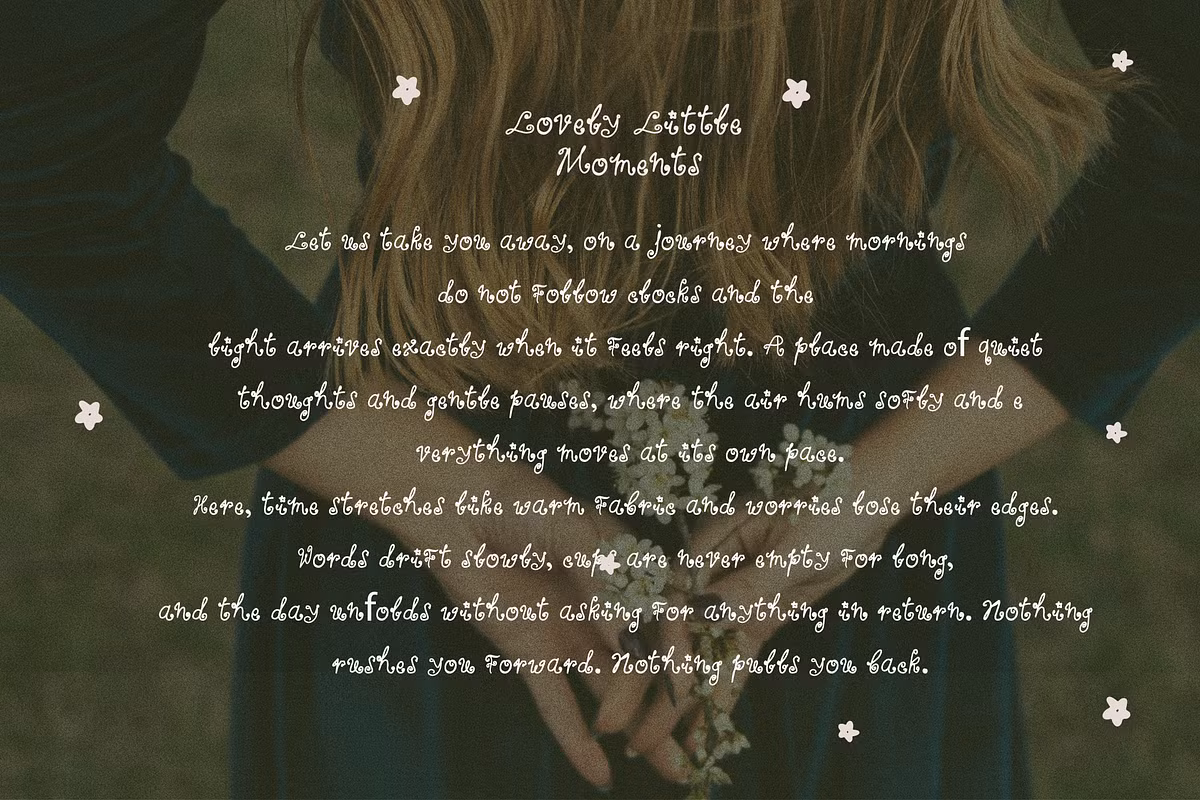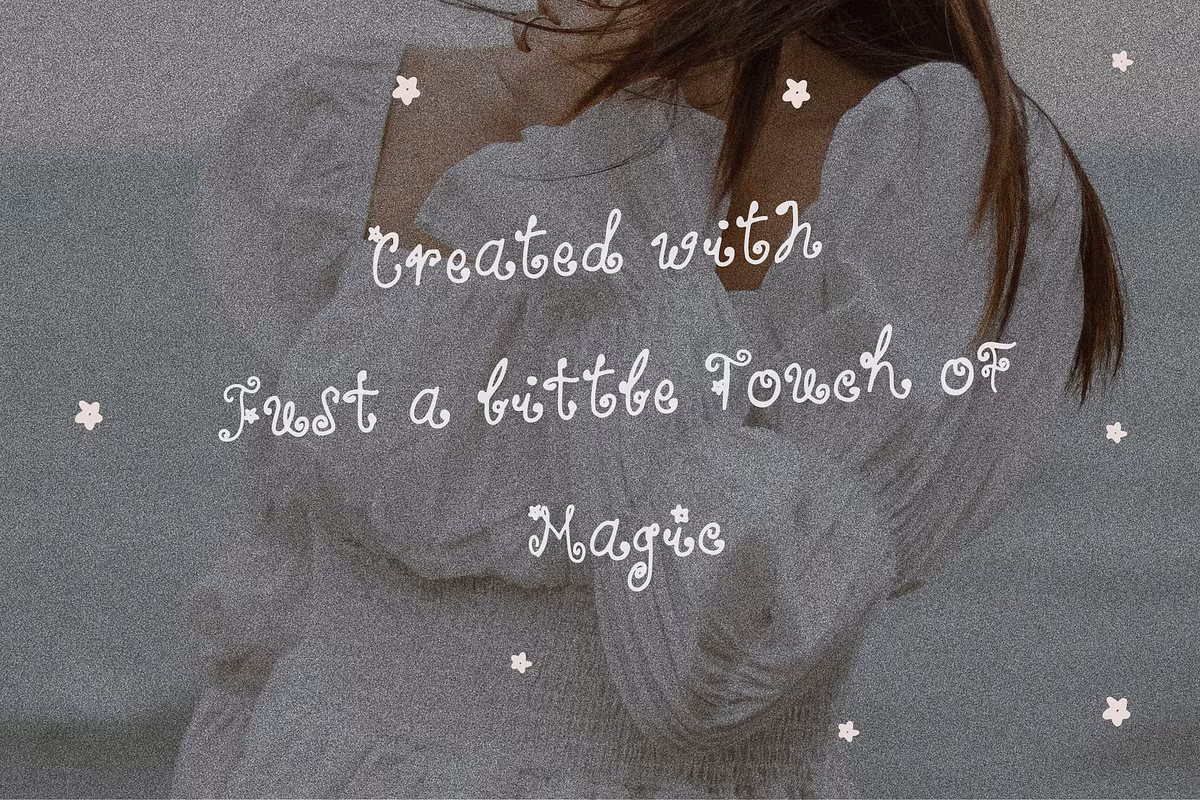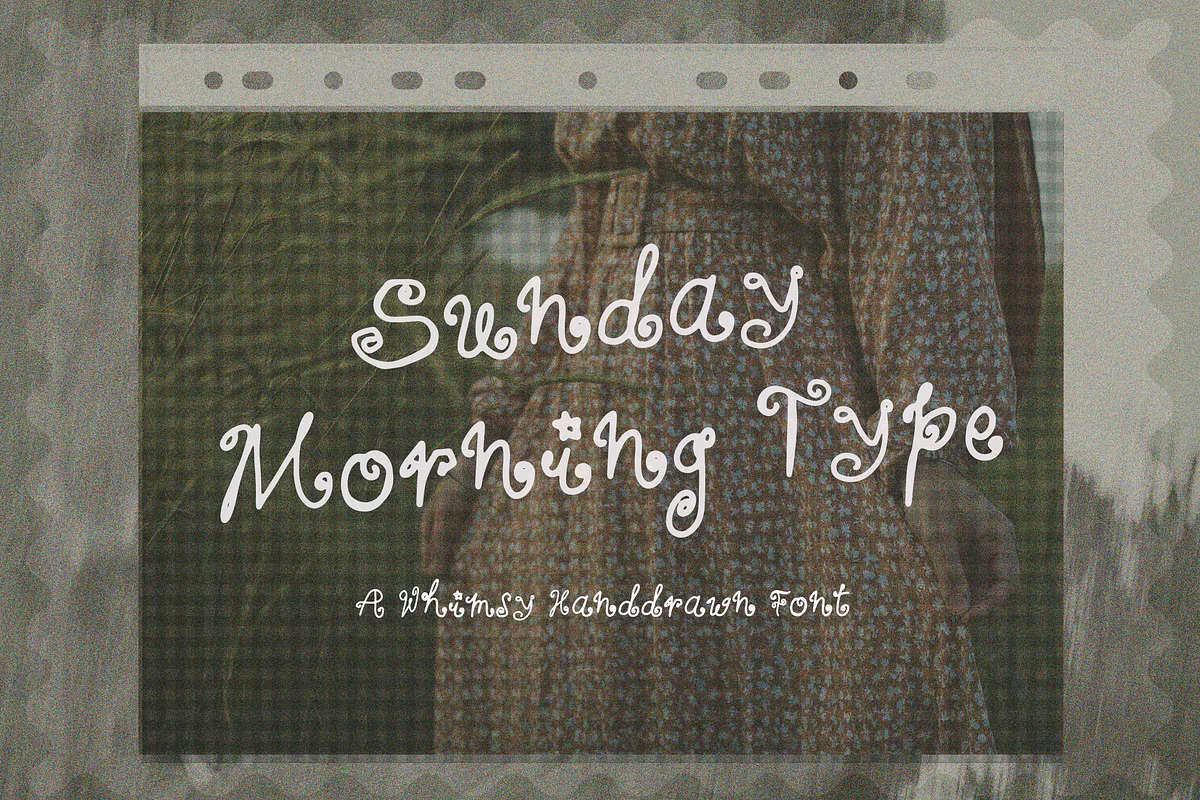
Handwritten Whimsy Script Font: Playful Typeface for Dreamy Designs
Meet the Sunday Morning Type, a fun and quirky handwritten font that’s perfect for adding a personal touch to your designs. It’s like a lazy morning, where everything feels cozy and creative. This font is great for people who love romantic, nostalgic, and dreamy designs. It’s a little imperfect, just like handwriting, and that’s what makes it special. Sunday Morning Type is all about capturing the soft, chaotic feeling of being artistic. If you’re a creator who loves to dream big, this font is for you – it’s the perfect way to bring your ideas to life and make them feel extra special. With its playful, doodly feel, Sunday Morning Type is sure to add a touch of magic to your designs, making them feel more personal and unique.
The thing that makes Sunday Morning Type special is its unique design style. It has a really playful and whimsical feel to it, kind of like the notes and doodles you’d find in a handwritten journal. This gives it a personal and warm touch that’s hard to resist. The fun, curly strokes and slightly wobbly lines make it feel super friendly and inviting, which is why it’s a great choice for all sorts of creative projects – it’s just so charming and full of character. Whether you’re working on a fun design project or just want to add a little something extra to your work, Sunday Morning Type is definitely worth considering. Its handmade feel and quirky personality make it a great way to add some visual interest and personality to your designs.
This typeface is really great for creating a nostalgic or dreamy feel. It’s perfect for things like branding, social media posts, or personal projects. Sunday Morning Type has a certain charm that people will love. The unique characters make it easy to create fun and expressive designs that will definitely stand out. You can use it to add a touch of personality to your work and make it more engaging. The quirky style of this font is sure to capture people’s attention and leave a lasting impression.
Character Sets and Unique Features
Sunday Morning Type has a lot to offer, especially when it comes to its characters. You get a huge selection of alternate characters and symbols, which is really cool. This means you can create designs that are truly one-of-a-kind. With so many options, you can personalize your font to fit your style and make it work perfectly for your project. It’s all about being creative and making the font your own, and Sunday Morning Type gives you the freedom to do just that.
The Sunday Morning font is really versatile and easy to use, since it comes in the .otf format that works with lots of different design programs. So, whether you’re a pro designer or just someone who likes to create stuff, you can use it. What’s cool about this font is that it’s got a fun, playful feel to it, and it’s got a big range of characters that you can mix and match to make your text look really unique and interesting. This means you can let your creativity shine and make text layouts that are totally your own.
Use Cases
Sunday Morning Type is a versatile font that can be used across a multitude of design applications. Here are some of the most popular use cases:
- Social Media: Enhance your Instagram posts, Facebook banners, or Pinterest pins with quotes or captions that pop. The whimsical style of Sunday Morning Type draws attention and adds a personal touch.
- Home Decor: Make your home a little more special with some beautiful wall art. You can create something really inspiring that makes you feel all warm and fuzzy inside. The font used is just right for decorating your home, and it’s perfect for prints that motivate you to be your best self.
- Branding: When it comes to creating a brand, you want something that stands out. Sunday Morning Type can add a special touch to your logo or packaging, helping to set your brand apart. The fun and lively feel of this type can send a message that your brand is creative and easy to relate to.
- Wedding Invitations: The romantic and dreamy qualities of this font make it an excellent choice for wedding stationery. Use it to craft elegant invites that reflect the joy and whimsy of your special day.
To get the most out of Sunday Morning Type, try matching it with other fonts that go well with its fun look. Here are some ideas for pairing fonts to make your designs stand out:
- When you’re looking to create a modern look, try pairing Sunday Morning Type with simple sans-serif fonts like Montserrat or Lato. This combination is great because it’s easy to read, and it also lets the fun and playful font be the star of the show. By putting them together, you get a nice balance that’s perfect for making your design stand out.
- When you pair it with serif fonts, like Playfair Display or Merriweather, it creates a really beautiful and classic look. The combination of different styles adds a lot of depth to your designs, and it’s something that a lot of people can appreciate.
- To get a look that’s all connected, try pairing Sunday Morning Type with other script fonts that have a similar playful feel, like Pacifico or Great Vibes. This can make your design look smooth and elegant. You can use them together to create a beautiful, flowing look that’s perfect for lots of different projects.
On a Sunday morning, you can make all sorts of cool things, like posts for social media, pictures to hang on the wall, or logos that people will remember. Sunday Morning Type is a great font to use for these projects, it’s really fun and will help you be creative. You can do lots of things with it, so just think about what you want to make and let your imagination go wild!